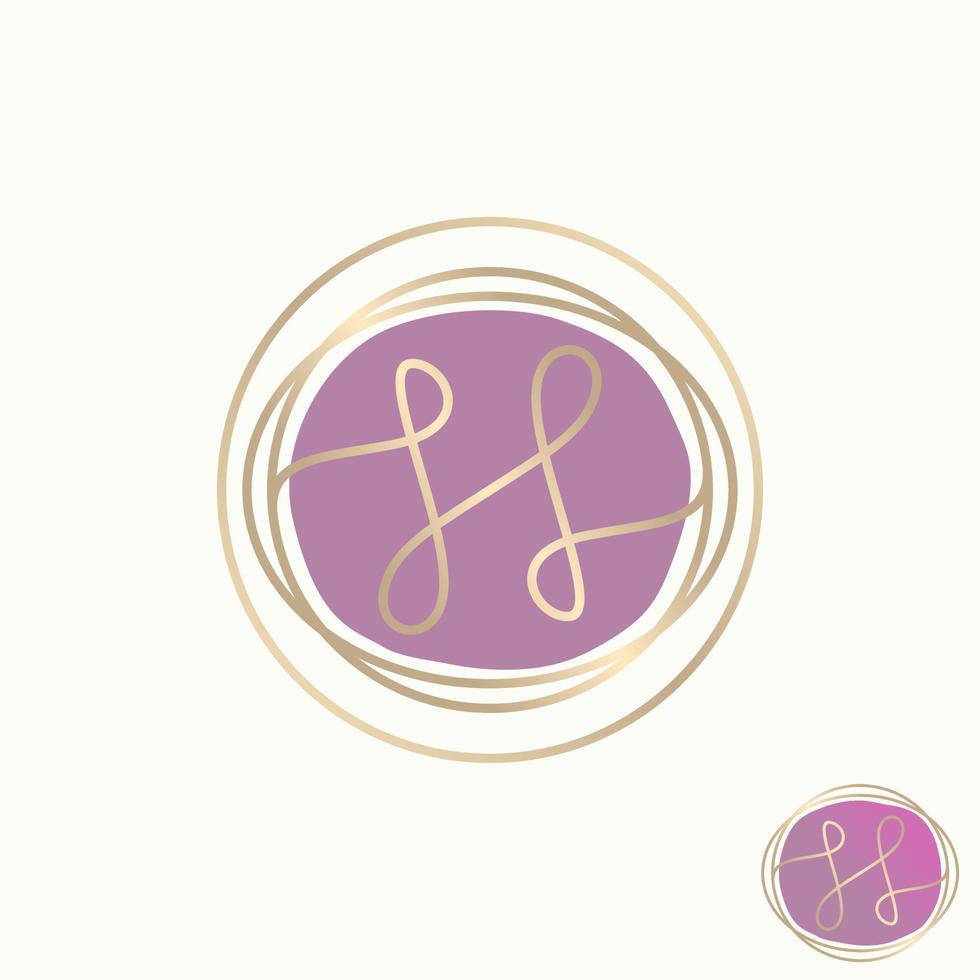
Simple and unique letter or word SS or H line beauty font image graphic icon logo design abstract concept vector stock. Can be used as a symbol related to luxury or initial Pro Vector